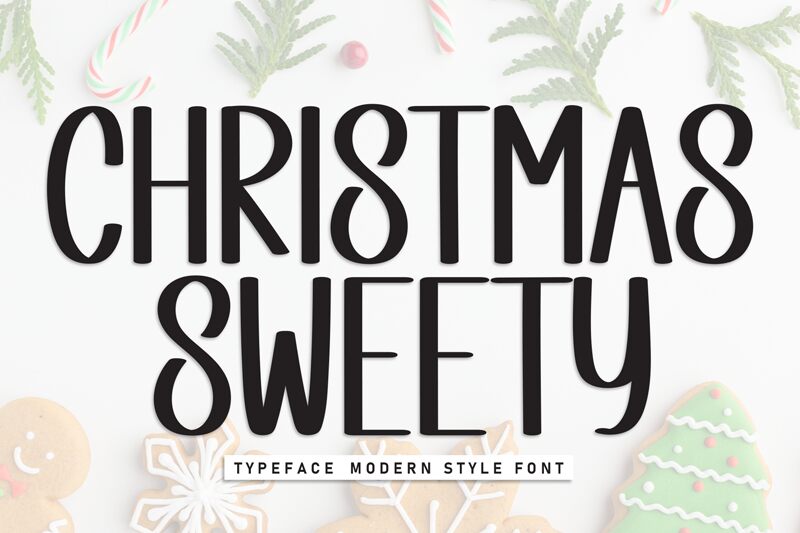
Christmas Sweety
Christmas Sweety font by Scratchones is a free handwritten font full of personality and elegant touches. Its tall, unusual style makes it easily recognized while setting a whimsical atmosphere to each word. The decorative flair and slight serif influence make up its ultimate appeal to those looking for uniqueness.
Multiple use cases benefit from this typeface in a beautiful way: Christmas greeting cards, posters, holiday product packaging, social media imagery, featured website content writing titles or body text. Even traditional printed materials like magazines can integrate this special font inside their articles.